Warner Bros Font Logo
Warner logo font nine #4. I hope it helps you out.
Logo from 1923 showed the studio building encompassed by the familiar shield form.
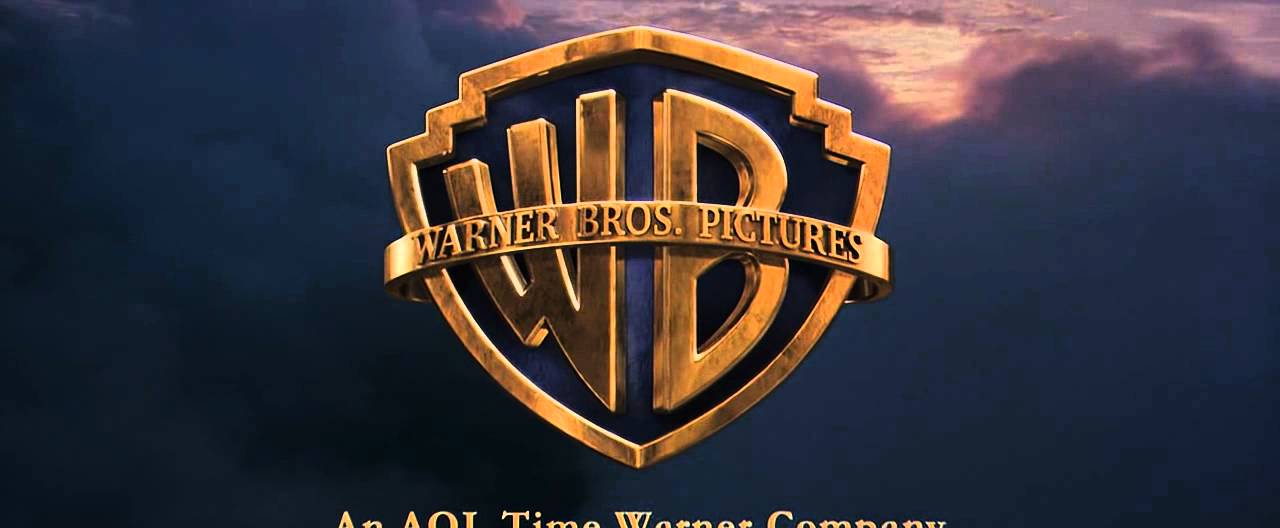
Warner bros font logo. For warner brothers logo font 9 images found by accurate search and more added by similar match. This is the best warner bros 2020 font. Otherwise known as the wb shield 2020 font.
The typeface is kept quite simple and easy to understand however it is presented in a large and bold font. The other one is called warner logo font nine. I haven't done a font in a month so here's one that i fontified back in november last year, the saul bass warner bros font.
Warner bros sans is an original font that came from the original shield of the logo and was inspired by the 1920s art deco. I hope it helps you out. It was known for introducing many famous cartoon characters such as bugs bunny, daffy duck, marvin the martian etc.
Pictures was introduced on april 4, 1923. I hope it helps you out. Also unveiled its own custom bespoke font.
The other one is called warner logo font nine. Home entertainment and warner bros. Before the 1925 update, this logo was used as a primary logo until the same year.
10 free fonts related styles. Blue, which has been brightened to a more contemporary hue, with the wordmark set off in a slightly darker shade to create a complementary contrast. Looney tunes is an american animated series of comedy short movies produced by warner bros.
Back in october, i asked if i could finish his font concept on the said logo, and he said sure and i went to finish it. This has the warner bros and other logos listed in it. Shield logo, nicknamed the brain shield.
Finnaly there is a warner bros font for the new 2020 logo i love it. By doing this, oberman said that the brand would still be present through the custom font, even if the shield was not there. This has the warner bros and other logos listed in it.
Now everyone could use this font for their warner bros. The other one is called warner logo font nine. Logo since 1923, with the exception of the 10th logo, which lasted from 1972 until 1984.
Also, this tooked me 1 day to make the font. This is the very first warner bros. Pictures & the vitaphone corporation present is used for the animation studio's 1930 cartoons.
Download warner brothers logo fonts for free in the highest quality available. The other one is called warner logo font nine. Font of warner bros logo:
We offer fast servers so you can download warner brothers logo fonts and get to work quickly. 1920 x 1080 7 0. Not to be confused with warner bros.
900 x 599 7 0. The first logo of warner bros. And their various production divisions.
The top half of the shield included a photo of the exterior of the their original studio building, with the wb initials occupying the bottom half, separated by. Family entertainment among others.) the font was originally made in calligraphr, but i noticed that the characters are cut off on the top and bottom, so i. Before the 1925 update, this logo was used as a primary logo until the same year.
I hope it helps you out. Started making classic cartoons in 1930, but did not use a logo until the following year; Warner logo font nine | dafont.com.